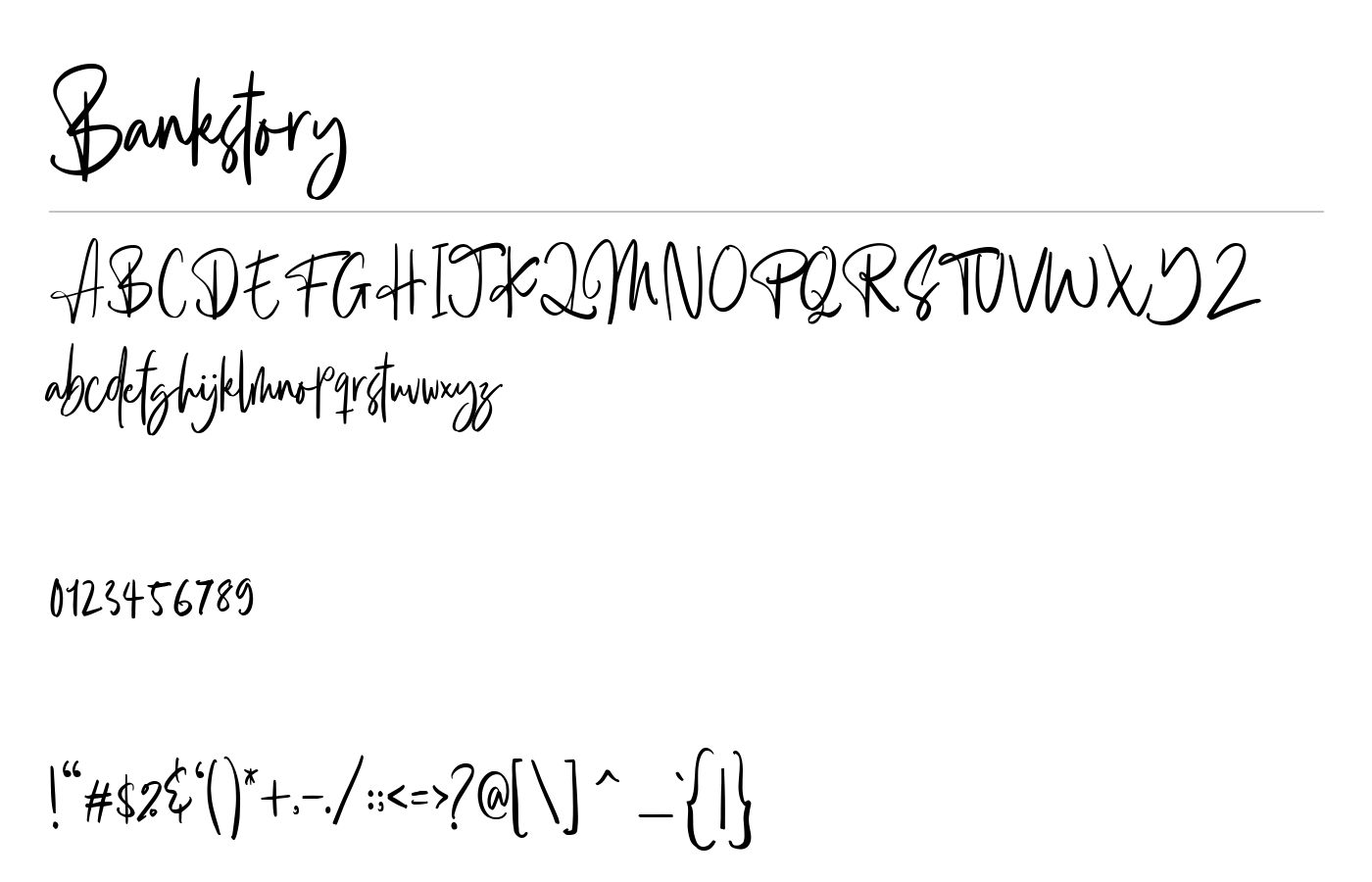
Bankstory is a casual, handwritten script font that features a tall, slender structure with a lively and organic flow. Its fine, uneven strokes and playful letterforms create a personal, approachable feel, making it ideal for creative projects, social media graphics, and branding that seeks a friendly, artistic touch. This font works best in headlines or short text where its unique character can stand out and convey warmth and creativity.
Bankstory Font